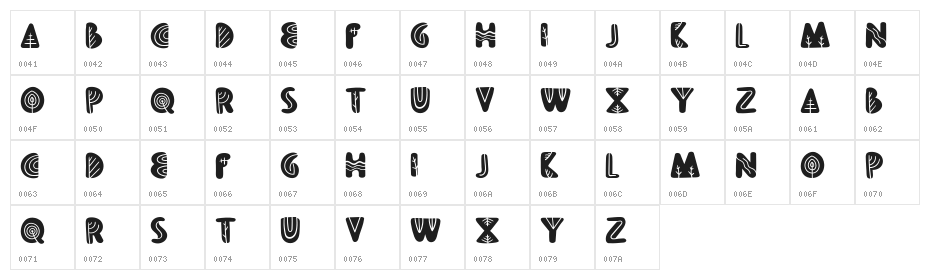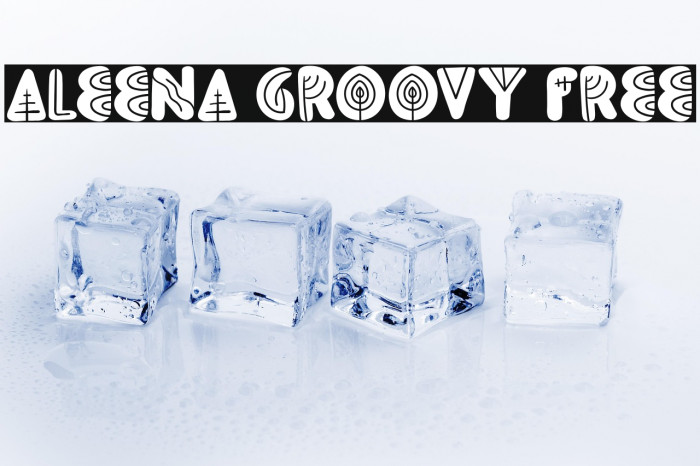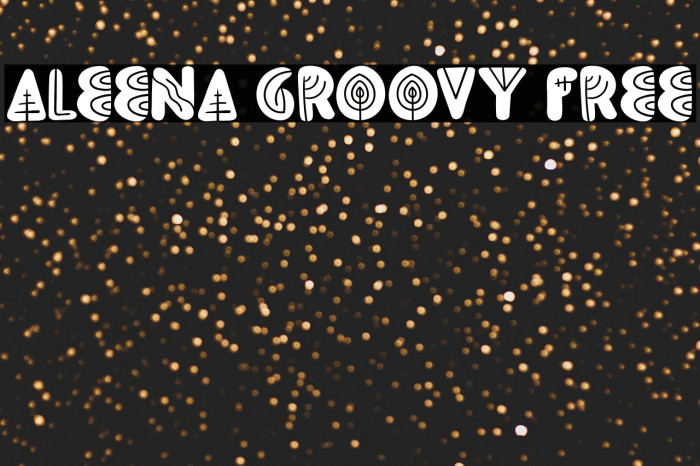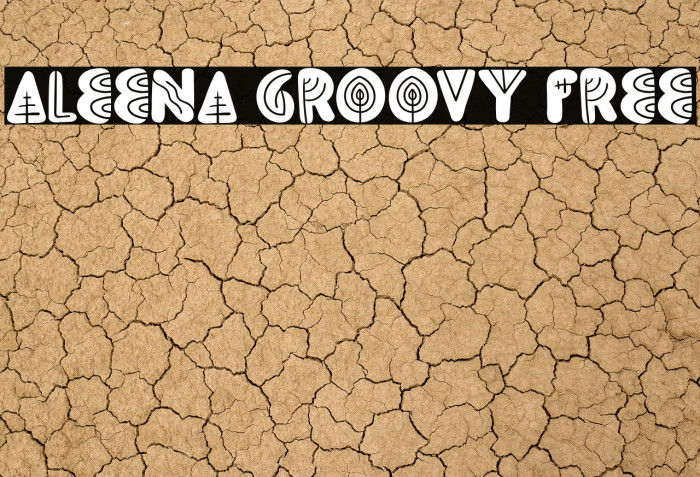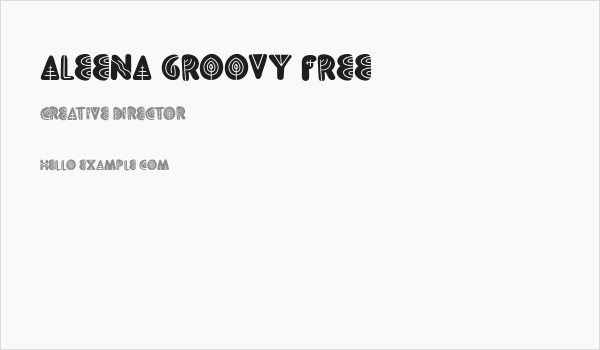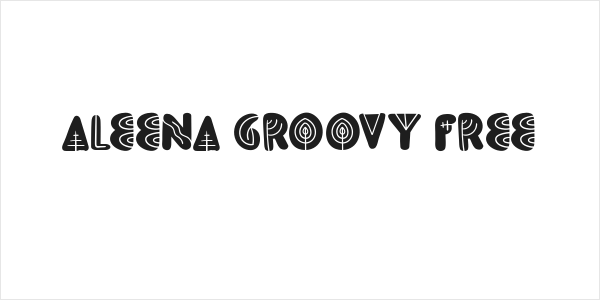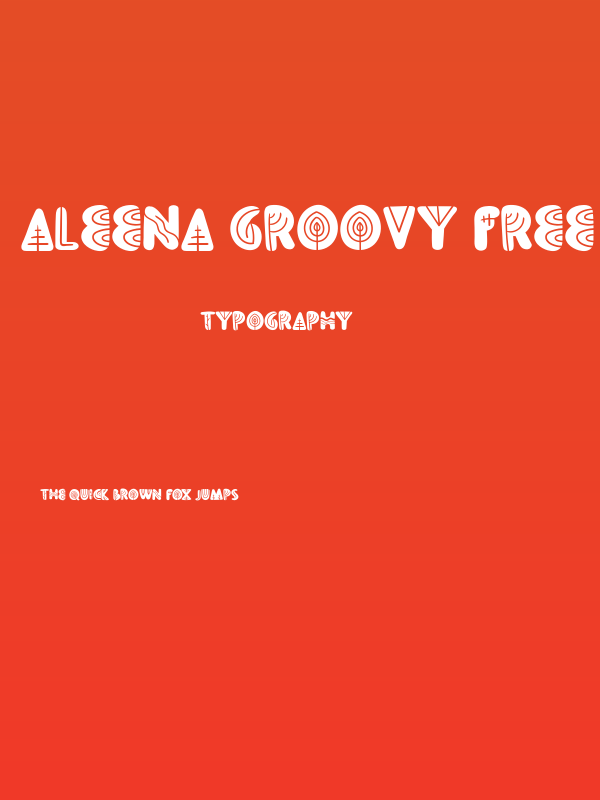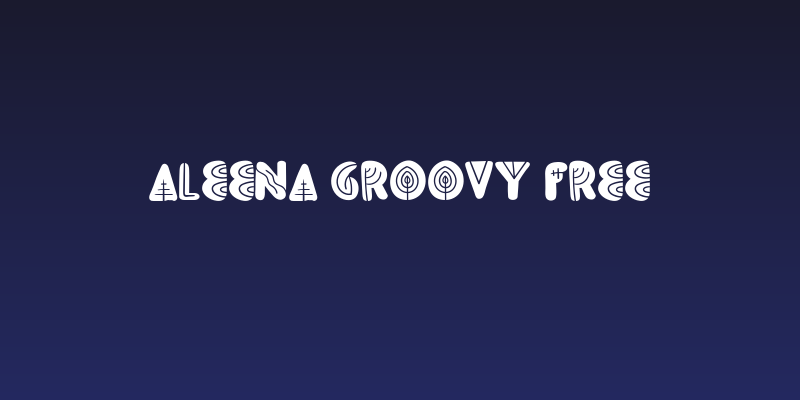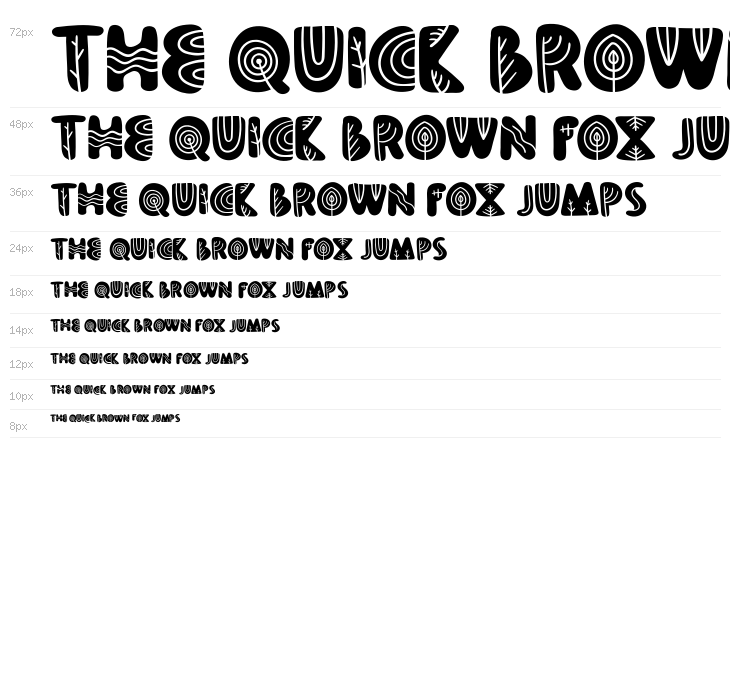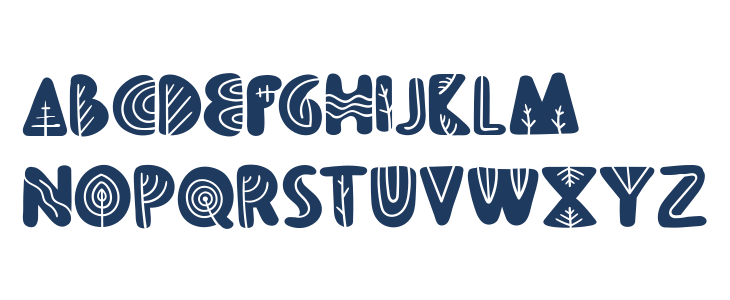
Aleena Groovy FREE Font
Aleena Groovy FREE Description
This font features a bold and playful design with a distinct retro vibe. Each character is uniquely styled with decorative elements, such as lines, dots, and geometric shapes, giving it a groovy and artistic flair. The uppercase letters are particularly eye-catching, with intricate patterns that make them stand out. The overall appearance is bold and chunky, making it ideal for projects that require a strong visual impact. The font's whimsical nature and creative detailing make it perfect for designs that aim to capture attention and convey a sense of fun and creativity.
| Overall Style | Retro, Artistic |
| Proposed Projects | Ideal for posters, album covers, branding, and any creative projects that need a bold, artistic touch. |